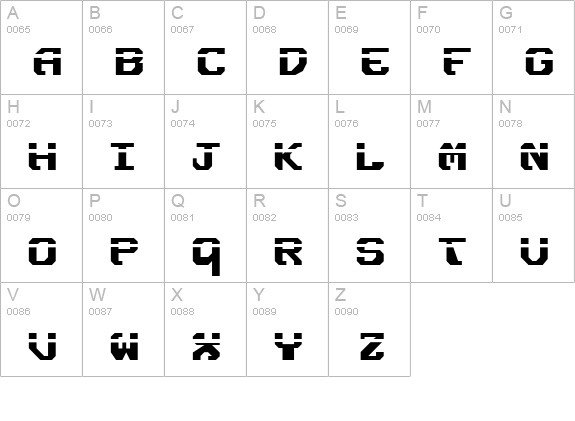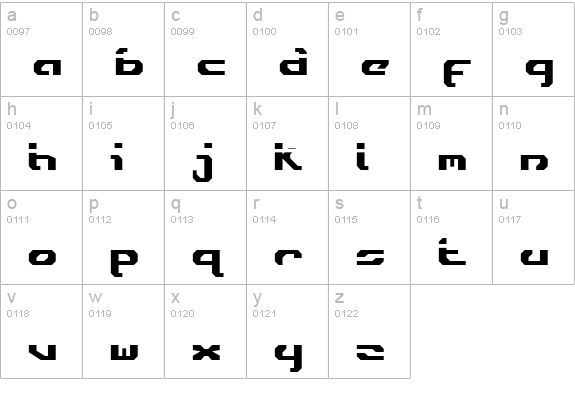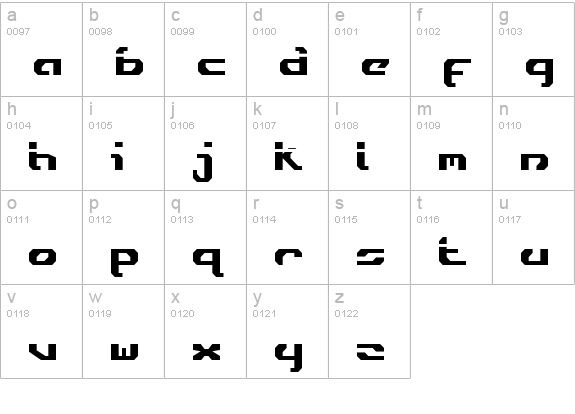
Ensign Flandry Laser font is a dazzling display typeface that exudes a futuristic and sci-fi vibe. With its sharp and angular design, this font is perfect for projects that require a modern and edgy look. The sleek lines and intricate details of Ensign Flandry Laser make it stand out and grab attention. What sets Ensign Flandry Laser font apart is not only its striking appearance but also the fact that it is available for free download at FontsMarket.com. This means that you can easily access and use this unique font in your designs without any cost. Whether you are working on a poster, logo, website, or any other creative project, Ensign Flandry Laser font will add a touch of sophistication and innovation. Download it for free today and elevate your design to the next level!